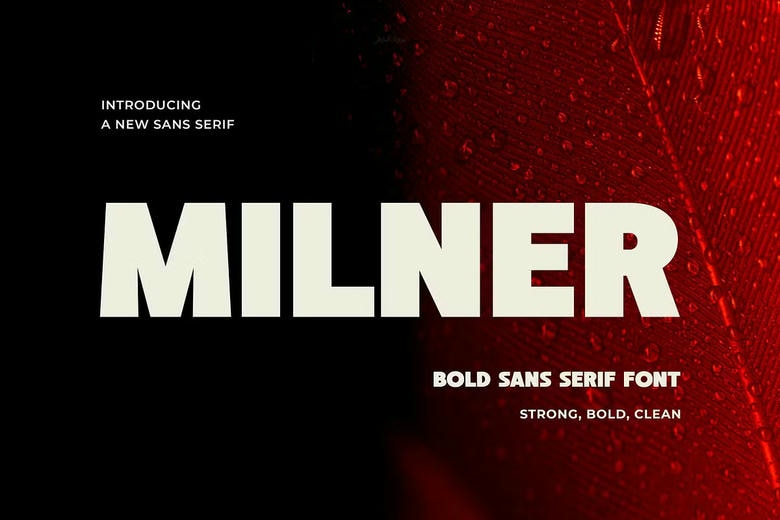
Milner Font
Milner is a Modern Bold Sans Serif Font. The typeface could be best employed for headings, logos and branding, magazines, product packaging, and invitations among other instances since it is modern and simple.
Milner Sans Serif Font